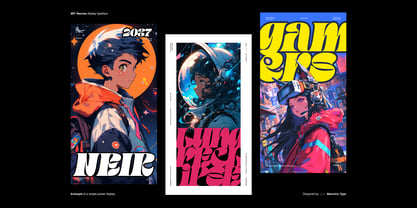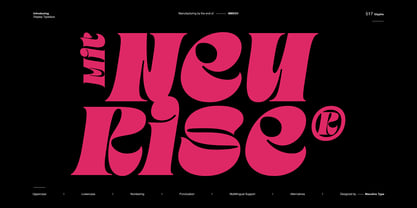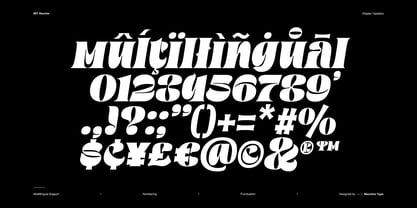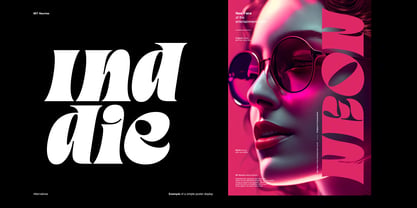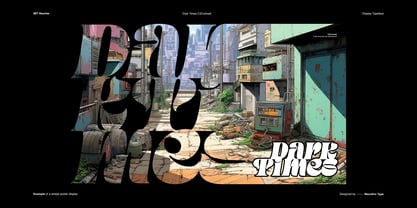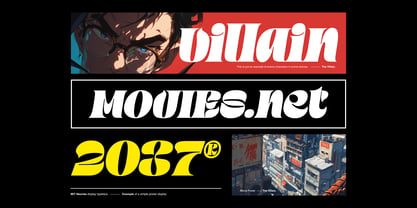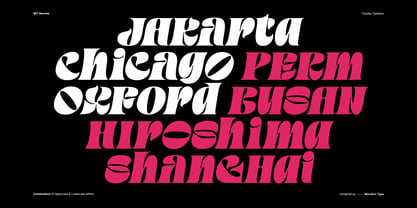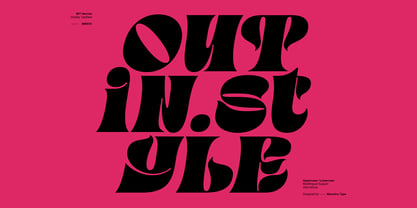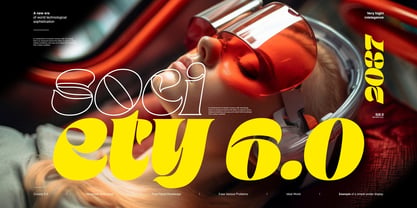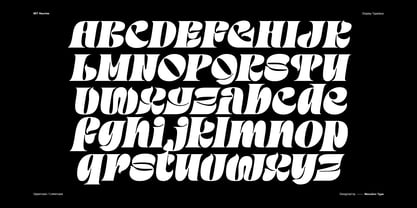
MIT Neurise
MIT Neurise — Display Serif Typeface MIT Neurise is a contemporary display serif typeface developed for professional typographic applications. Rooted in classical serif structures and refined with modern curves, it offers a confident and elegant visual presence with strong typographic character. Optimized for headline, branding, and editorial use, MIT Neurise features alternative glyphs that support expressive yet controlled typographic compositions, enabling distinctive titles and logos with a refined, custom appearance. The typeface is equipped with a complete character set, including uppercase and lowercase letters, numerals, punctuation, and multilingual support, providing dependable performance across diverse languages, platforms, and production environments. Carefully balanced proportions and clean spacing ensure consistent, high-quality results. MIT Neurise is designed for designers who require a modern display serif that delivers clarity, control, and professional reliability.